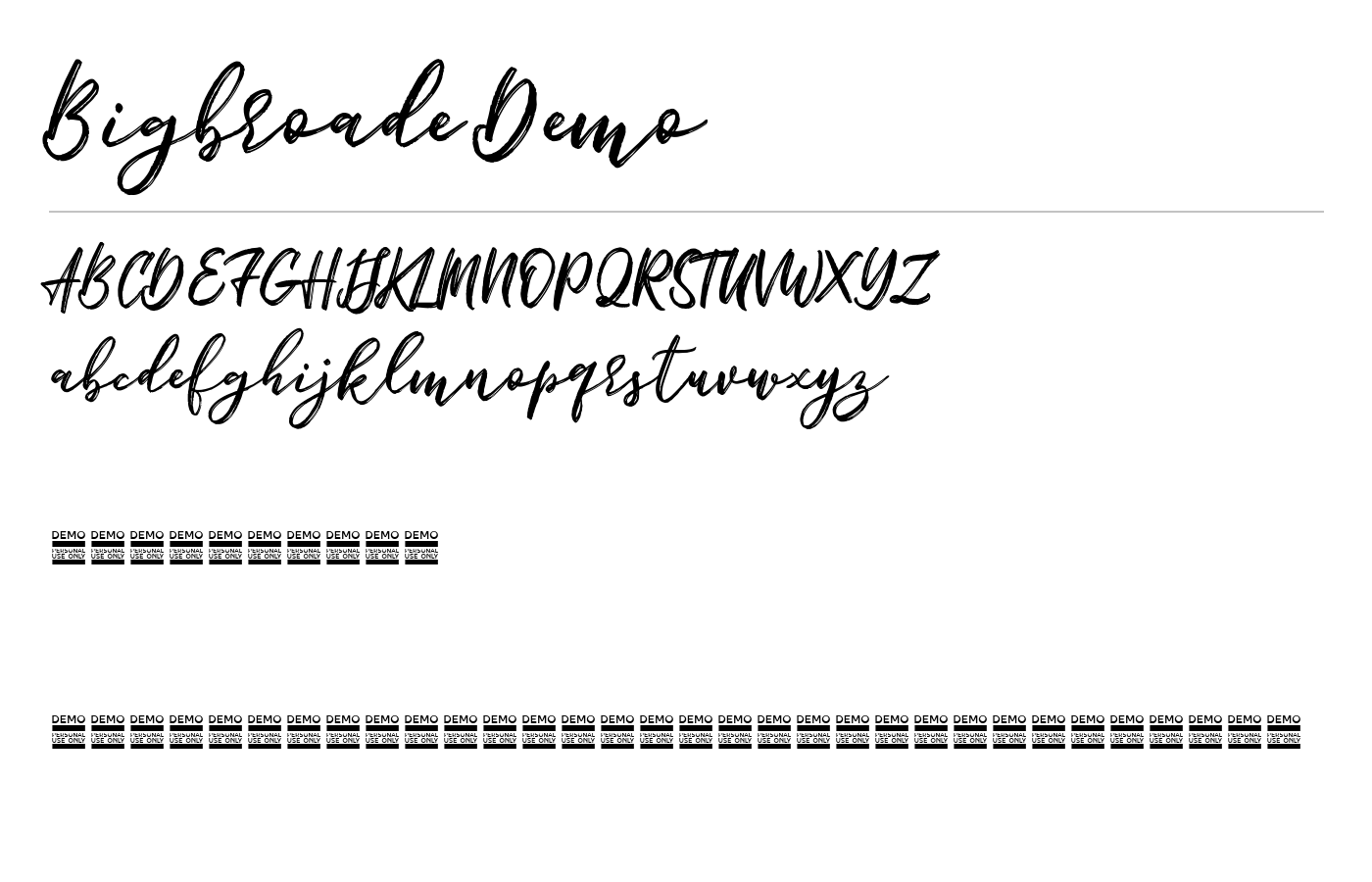
Bigbroade Demo is a lively script font with a hand-brushed, casual style that feels both personal and dynamic. Its bold weight and flowing letterforms make it perfect for creative projects, branding, and headlines where a friendly, expressive touch is desired. This font adds a sense of energy and approachability, making it ideal for invitations, logos, and social media graphics.
Bigbroade Demo Font
About Bigbroade Demo Font
| Font family | Bigbroade Demo Font |
| Designer | Arief & Rakan |